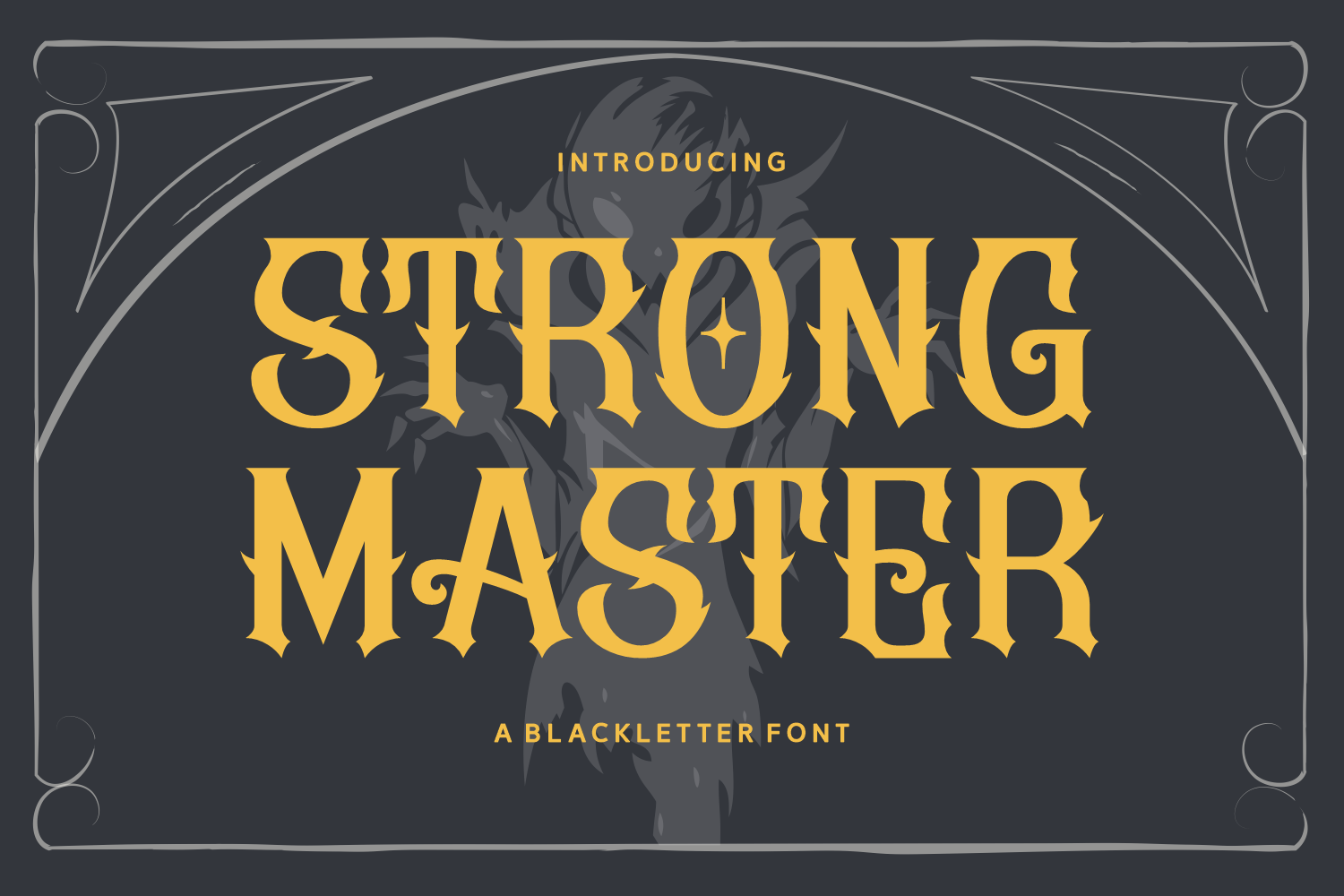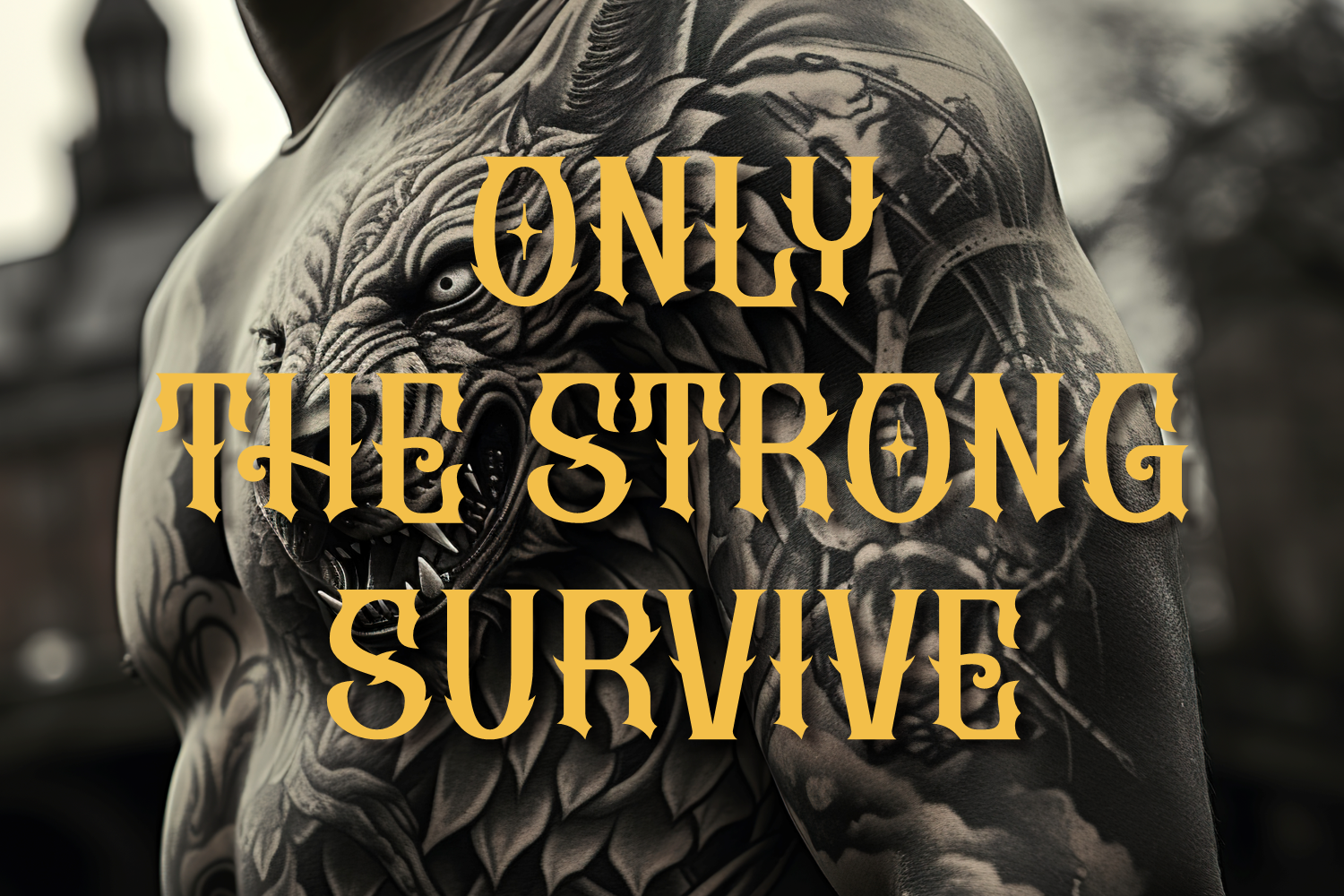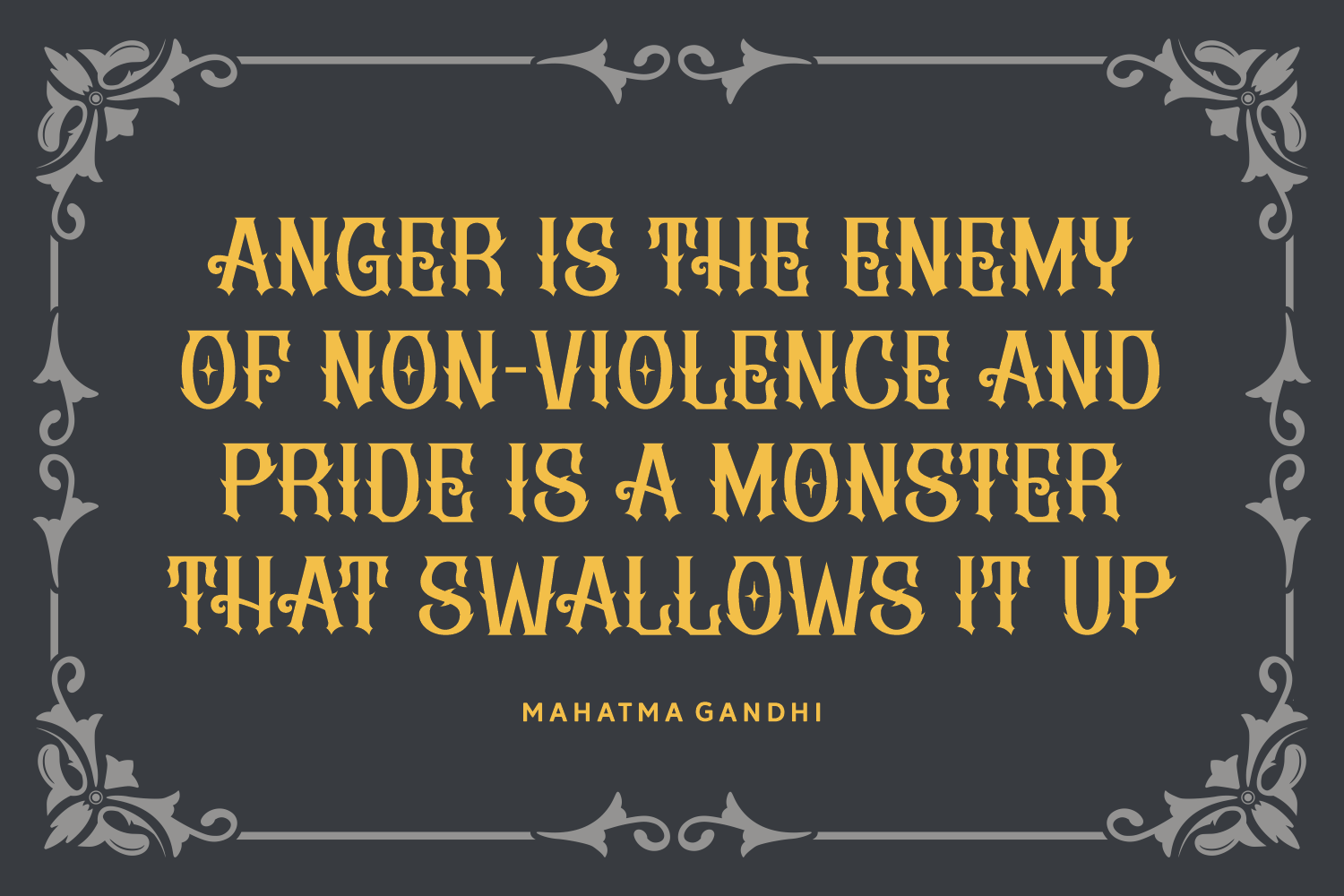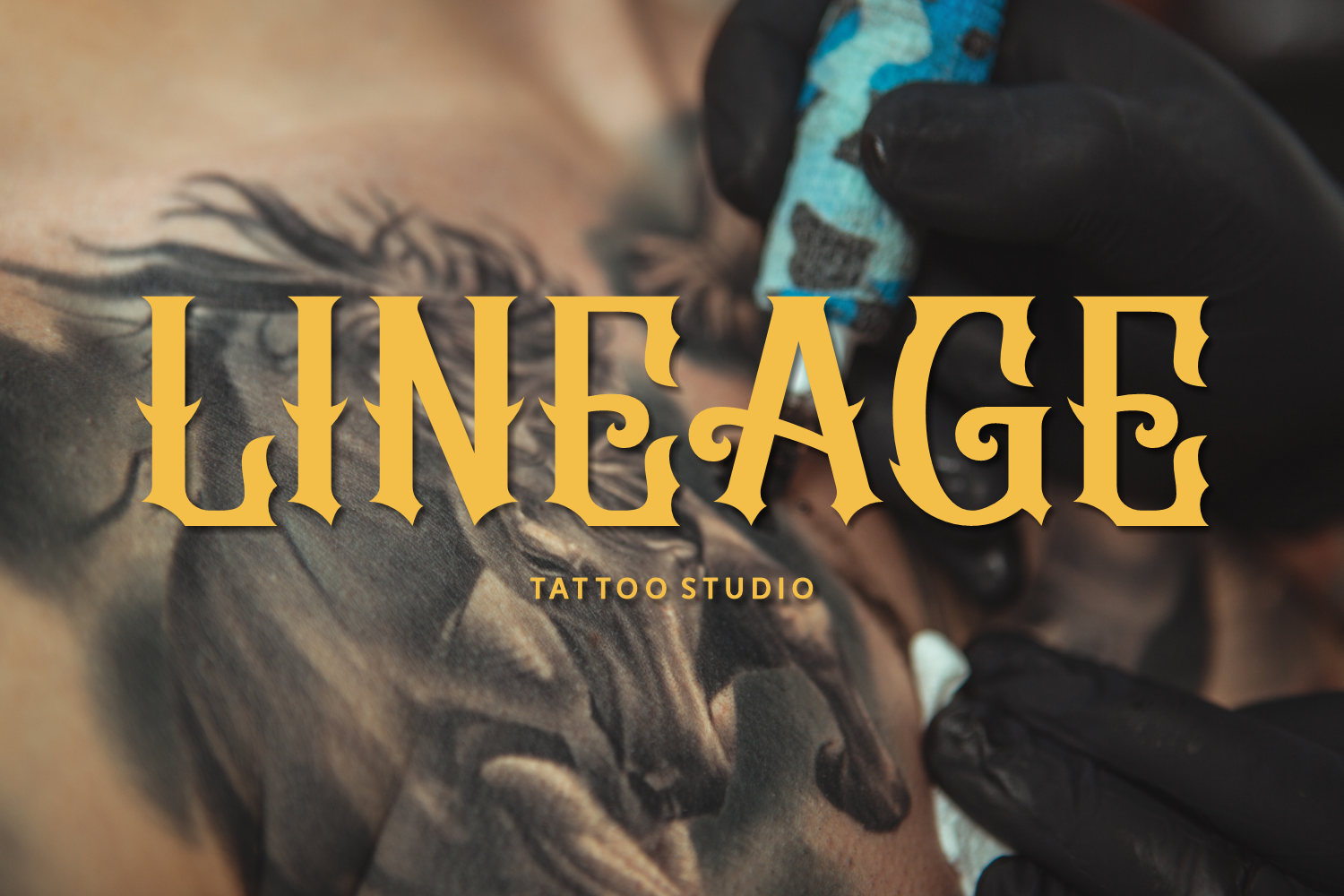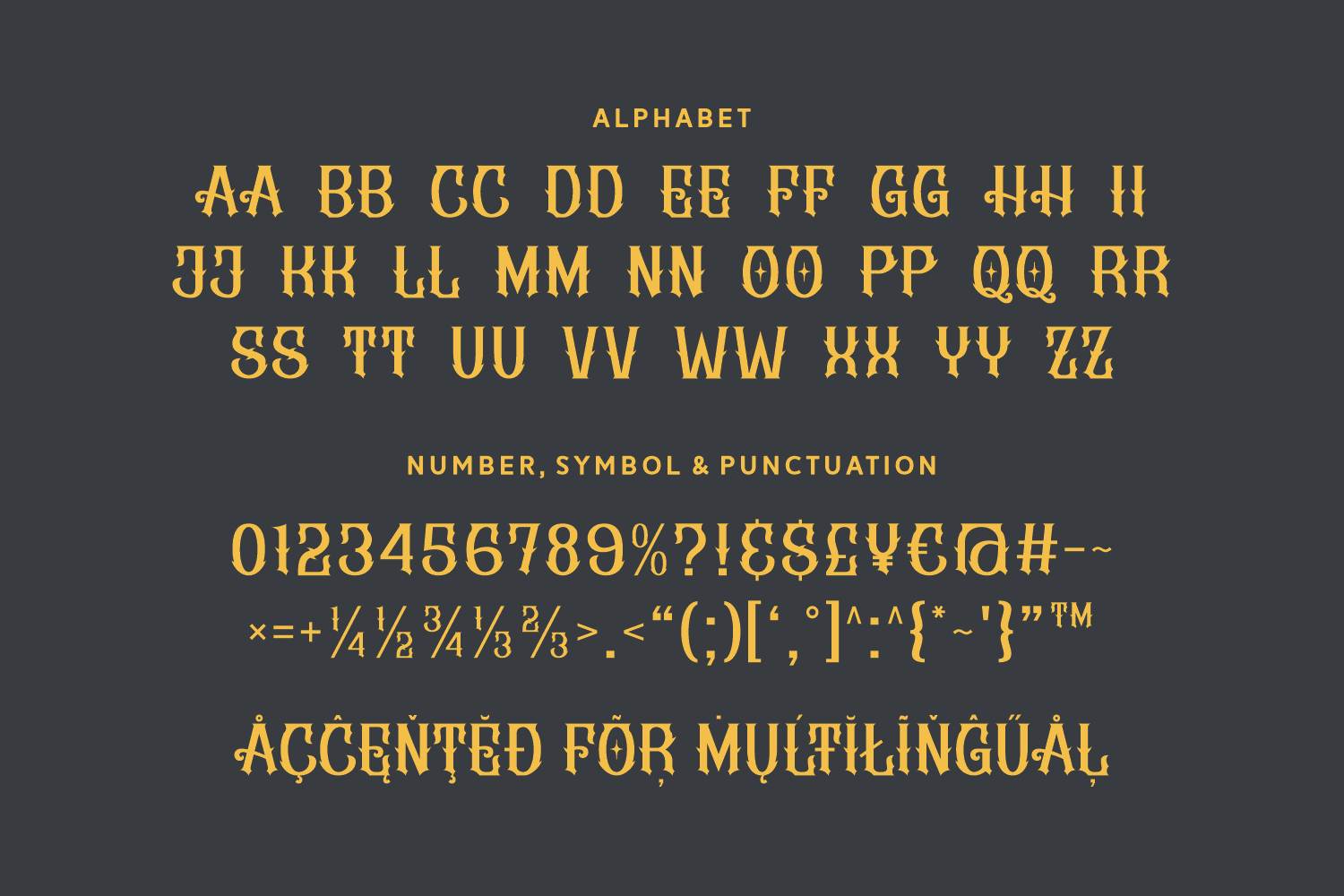
Strong Master
Strong Master is a powerful blackletter font designed with bold personality and heroic flair. Its sharp diamond-shaped elements and strong curves evoke fantasy worlds, epic storytelling, and high-impact branding. Perfect for posters, game titles, or adventurous branding.